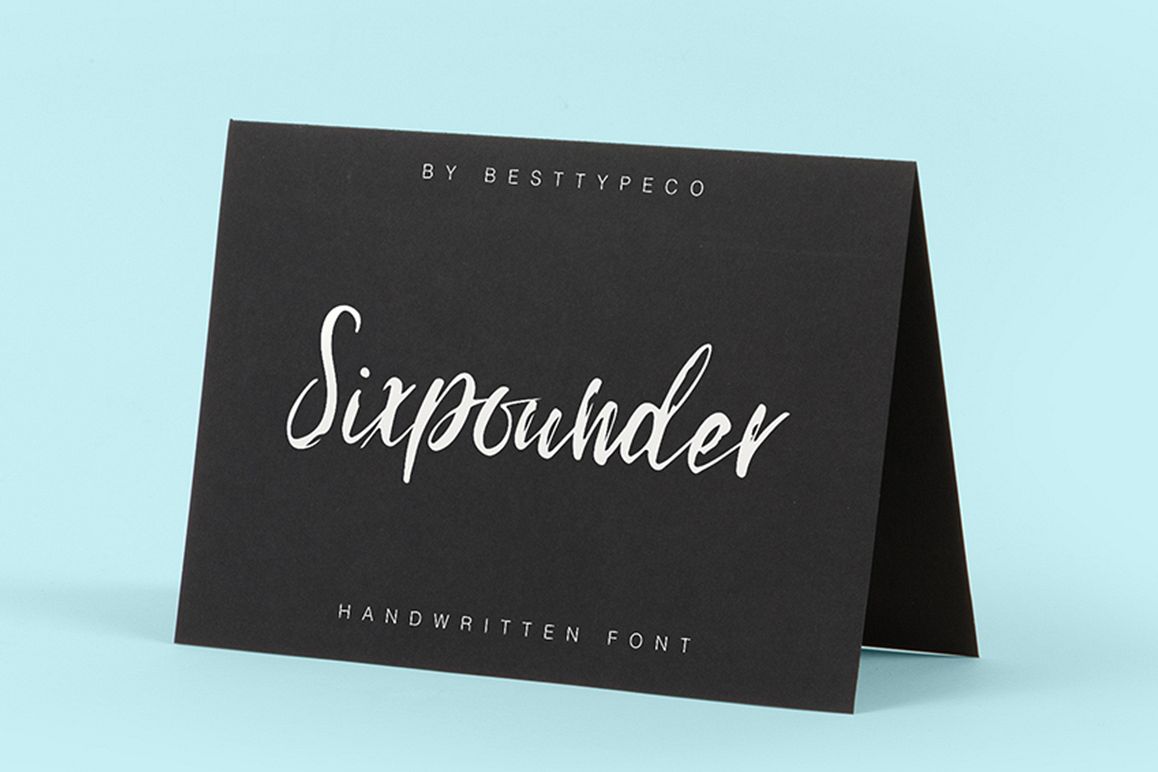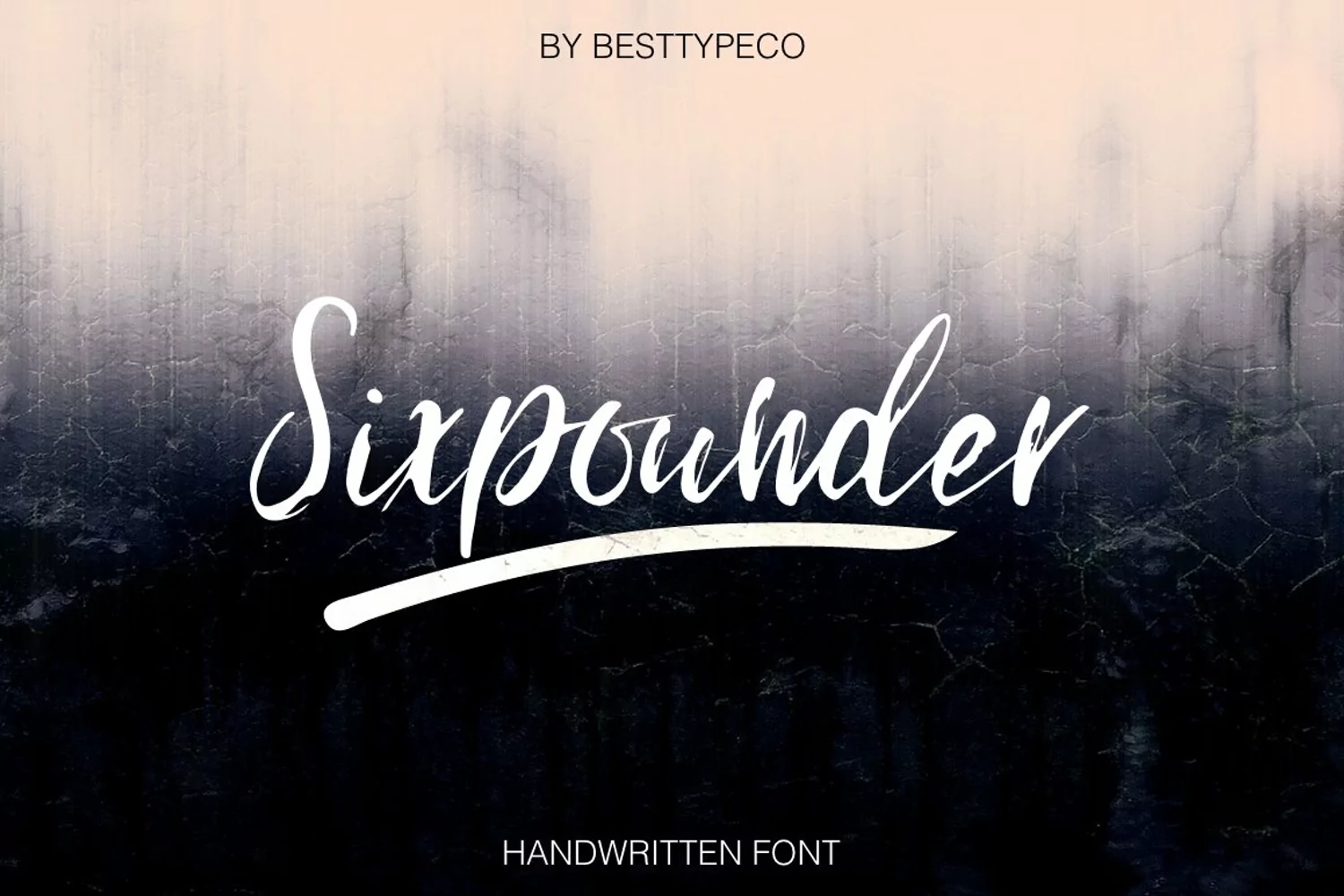
Sixpounder - a new fresh handmade calligraphy font. Very suitable for greeting cards, branding materials, business cards, quotes, posters, and more!This font are perfect for wedding postcard. Or you can create perfect and unique design of your logo, blog, stationery, marketing, magazines and more :) ZIP INCLUDED: Sixpounder OTF Sixpounder TTF Sixpounder WOFF